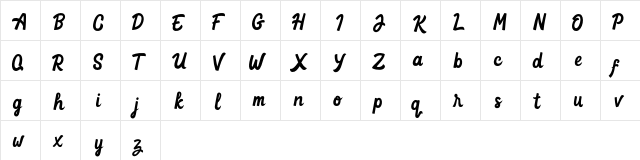
Goteru FREE Regular
Design Context for Goteru FREE Typeface
Goteru FREE is a composed and adaptable typeface that performs quietly and consistently across a wide range of design contexts.